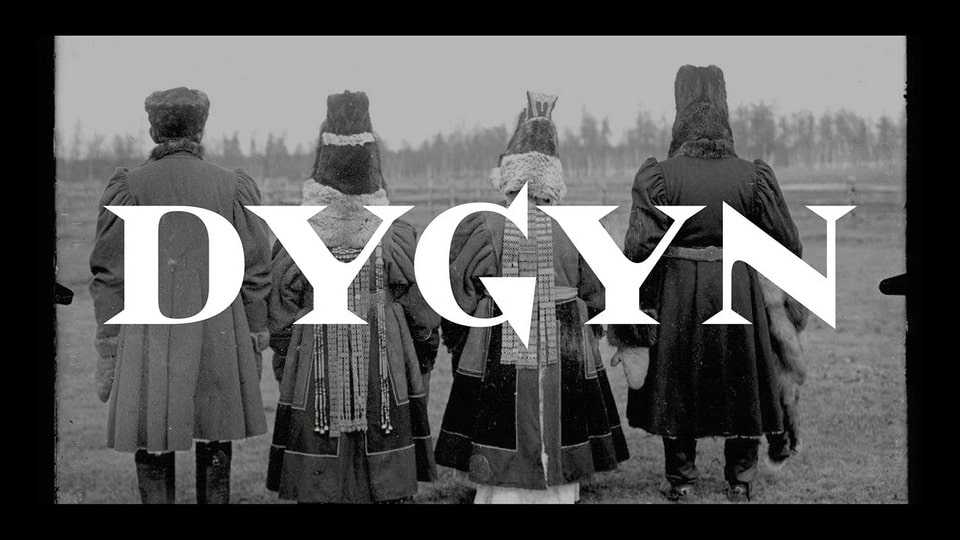
Download Dygyn font, an accidental antique typeface with a northern soul, born from the ornaments of the Sakha people and passed down through centuries from mouth to pattern.
Designer: Nana Kolodeznikova